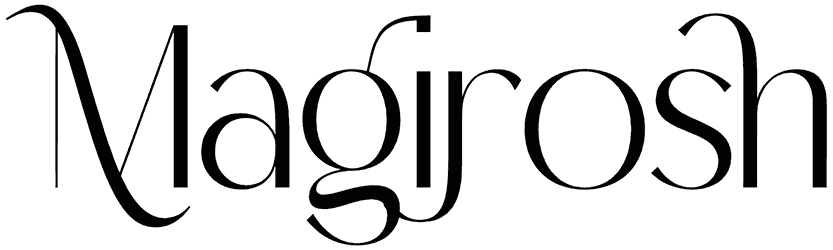
Magirosh Font
Does it ever feel like you haven’t got any more inspired ideas to design logos? Well, that’s where Magirosh shines. This elegant font is all about setting you apart from the crowd and turning everyone’s heads, so you’re going to be fine.
Design some of your best branding artwork with the swirly letters of this ligature serif font and leave your clients impressed. You just have to turn it into music class logos or art consultant business cards, and you’re set.